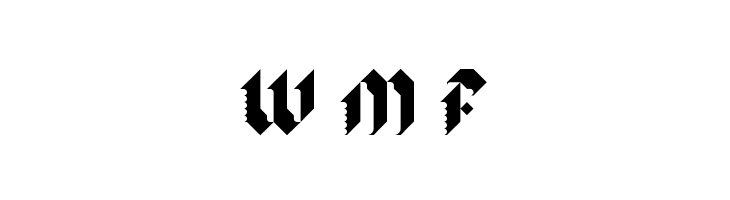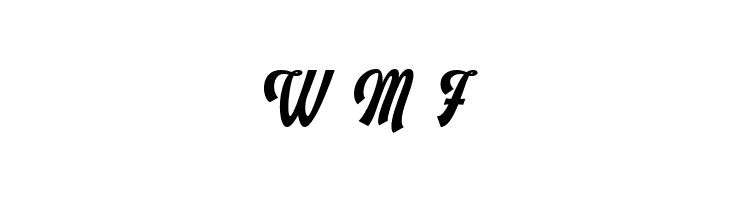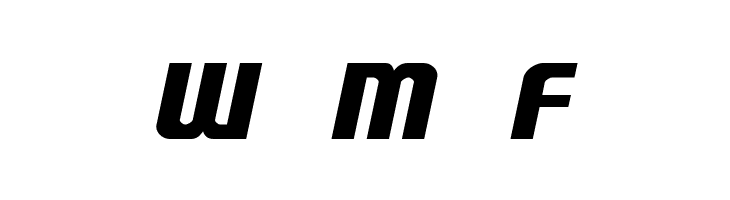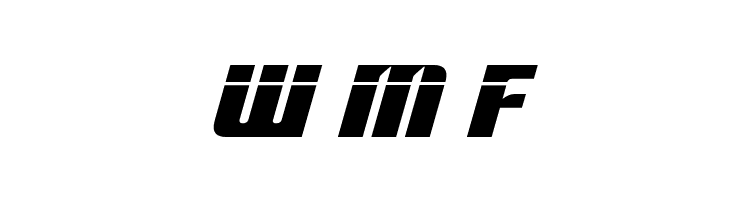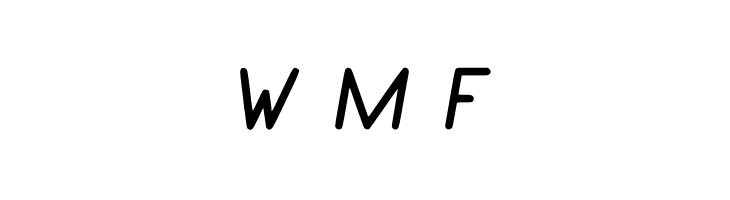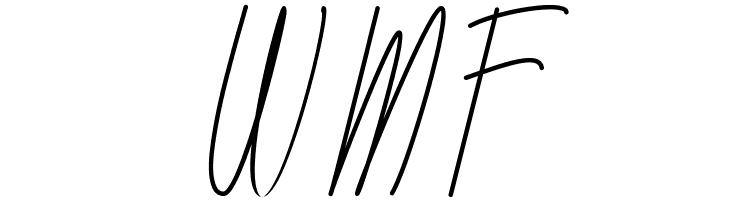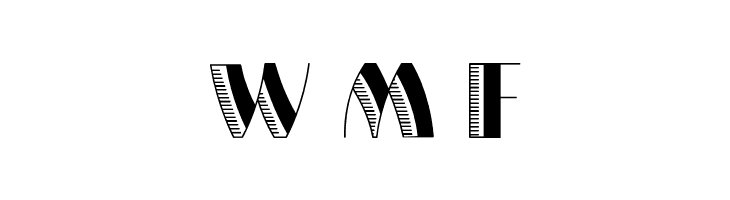
A bold, angular font with a medieval-inspired, jagged design.
A slender, condensed, and italicized font with a modern and elegant style.
A bold, flowing script font with elegant, interconnected characters.
A decorative, distressed font with a grunge-like, edgy appearance.
A bold, gothic-style font with sharp serifs and a dramatic flair.
A bold, brush-style handwritten font with a lively and informal appearance.
A sleek, italic font with elongated, narrow characters and a modern aesthetic.
A bold, italicized font with angular, dynamic letterforms.
A bold, italicized font with a dynamic, futuristic style.
A bold, italicized font with a futuristic and dynamic design.
A bold, italicized font with a futuristic, angular design.
A bold, condensed, and italicized font with a modern and dynamic style.
A bold, angular font with a dynamic, forward-leaning style.
A bold, staggered, and italicized font with an aggressive, dynamic style.
A bold, italicized font with a futuristic and angular design.
A bold, italic, and condensed font with a modern, dynamic style.
A bold, italicized font with a modern, geometric style.
A bold, slanted, futuristic font with geometric and angular characters.
A bold, italic, and expanded font with a dynamic, blocky style.
A bold, italicized font with a dynamic, comic book style.
A bold, italic script font with a modern, handwritten style.
A cursive, elegant font with smooth, interconnected letters and decorative flourishes.
A playful, decorative font with circular accents on each stroke.
A bold, italicized font with a futuristic, geometric style.
A bold, italicized font with a futuristic, angular design.
A dynamic, italicized font with sharp, angular strokes and a modern look.
A dynamic handwritten font with tall, narrow letterforms and fluid strokes.
A bold, decorative font with angular, ornate designs and intricate flourishes.
A bold, Art Deco-inspired font with geometric shapes and intricate line detailing.
A futuristic, angular italic font with a bold and dynamic style.
A sleek, modern italic font with thin, consistent strokes and a dynamic appearance.
A bold, italic font with sharp angles and a modern, dynamic style.
A playful, cursive font with interconnected letters and a handwritten feel.